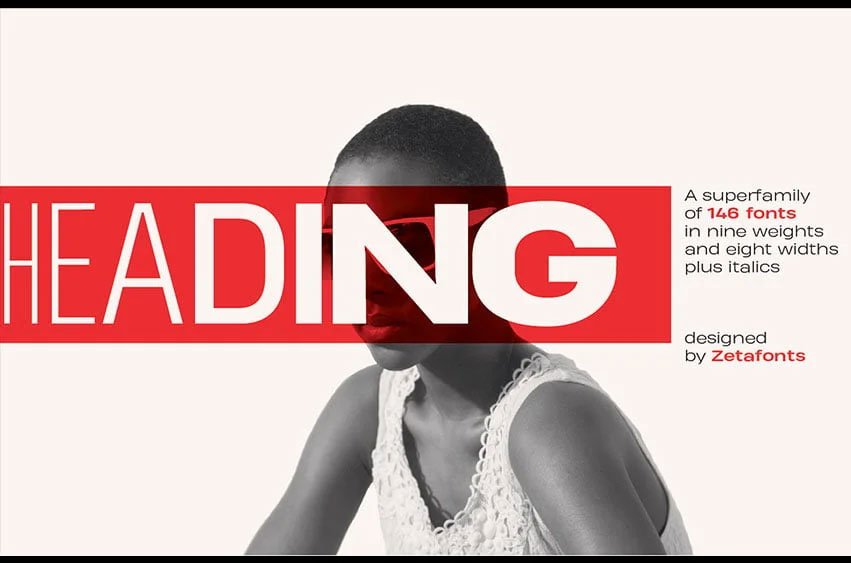
Heading Pro Font provides a wide spectrum of sans serif-type solutions to your design problems. Born as a space optimizing typeface for headers and titles, can be used in its ultra compressed, and normal widths to optimize space on the printed page and on the screen. In these widths Heading Pro excels in titles and subheadings, timetables, name and credit lists, and cases of exuberant and excessive copywriting.
But the Heading family is not only made for extreme widths: the original condensed family has been complemented with a range of three medium width variants: Heading Medium, Heading Double, and Heading Treble. When you need to pair the extreme display widths with some medium-proportioned text, these three widths allow you to design text blocks with a fine grain control on appearance and a wide array of open-type features.